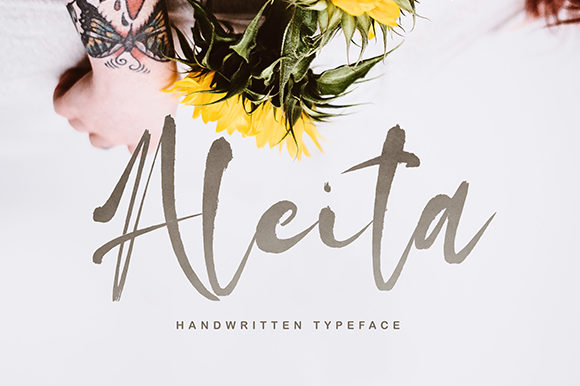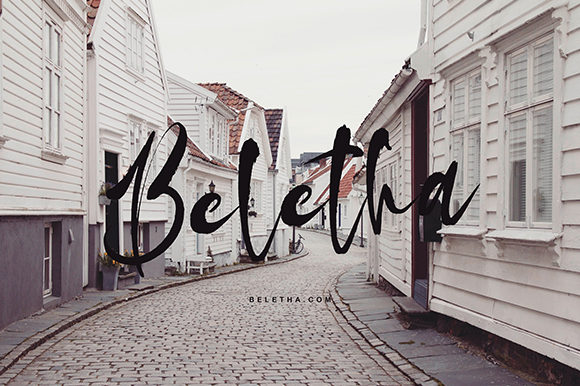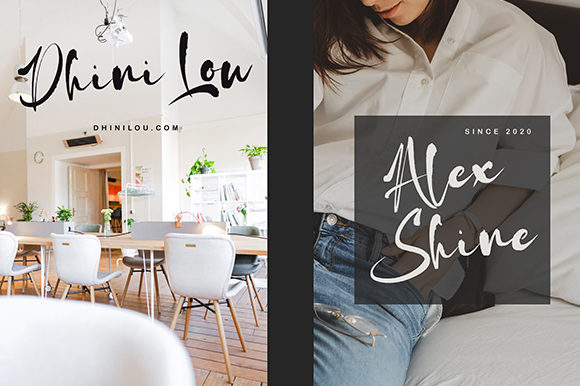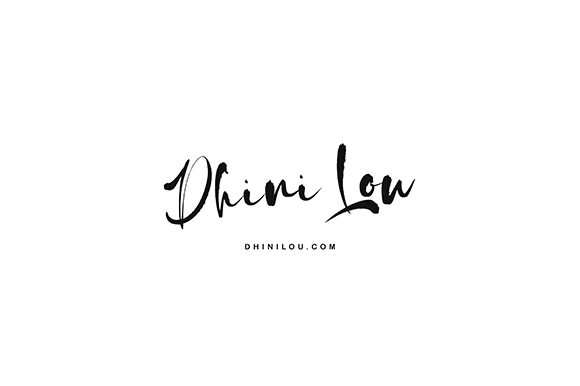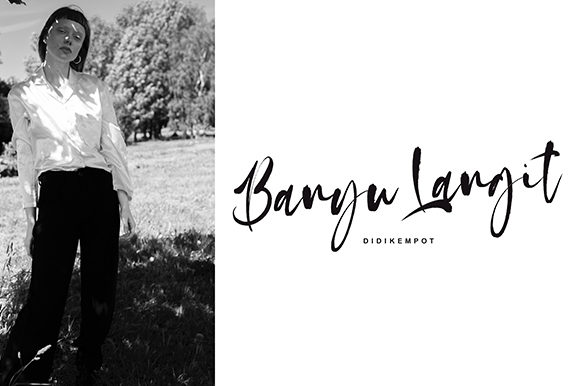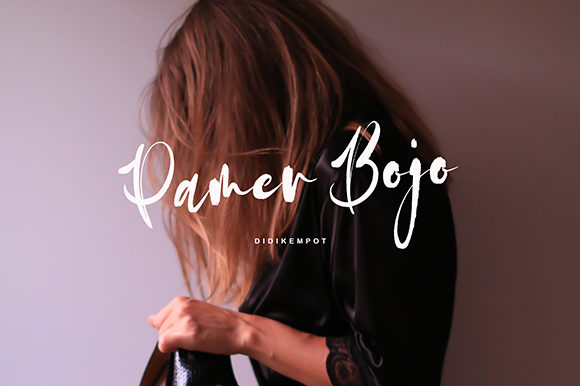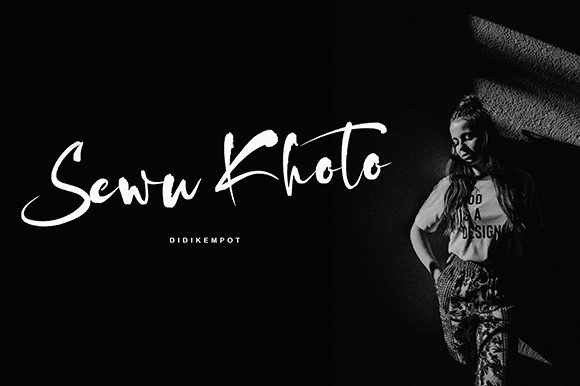
HomeScript FontsAleita Font Script Fonts Aleita Font FacebookXPinterestWhatsApp Aleita Font Poster 2 Aleita Font Poster 3 Aleita Font Poster 4 Aleita Font Poster 5 Aleita Font Poster 6 Aleita Font Poster 7 About Aleita Font Aleita is a fresh handwritten font. Use it for any design project that requires a personalized appearance! DOWNLOAD ON CREATIVE FABRICAThis font is sold and delivered by Creative Fabrica. Font Canyon may earn a commission if you buy through this link. People also explored charlieMOON Happy Holiday Font Polaris Star Font Greetadis Font Samantha Font Smiles Playful Font Amstirdam Font Simplesky Font Mon Petit Cahier 343 0 TagsAleita Font Previous articleBrenda Valentine FontNext articleDaisy Boo Font LEAVE A REPLY Cancel reply Comment: Please enter your comment! Name:* Please enter your name here Email:* You have entered an incorrect email address! Please enter your email address here Website: Save my name, email, and website in this browser for the next time I comment. Personal Use Free Choco Shake Font Personal Use Free Read more about this font BD Fluke Personal Use Free Read more about this font Comic Caps Personal Use Free Read more about this font Astercla Personal Use Free Read more about this font BLOG Free vs Paid Fonts: Why Investing in Premium Fonts Is Worth It Free vs Paid Fonts: Why Premium Fonts Are Worth It in 2025 The debate of free vs paid fonts continues in the design world. While... How to Install and Use Fonts on Windows, macOS, and Web Projects Using Fonts in Digital Marketing: Tips to Strengthen Your Brand Identity How to Cut Any Font on Cricut: Convert a Font to SVG (Free)